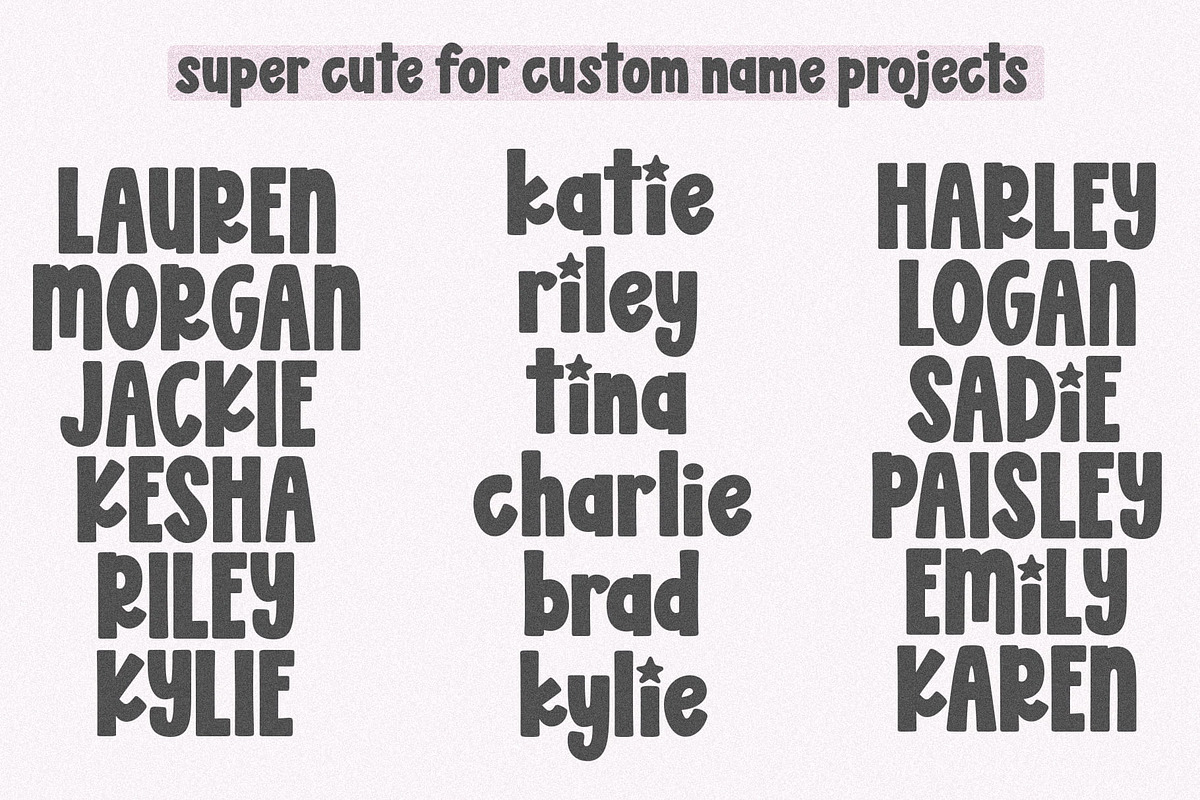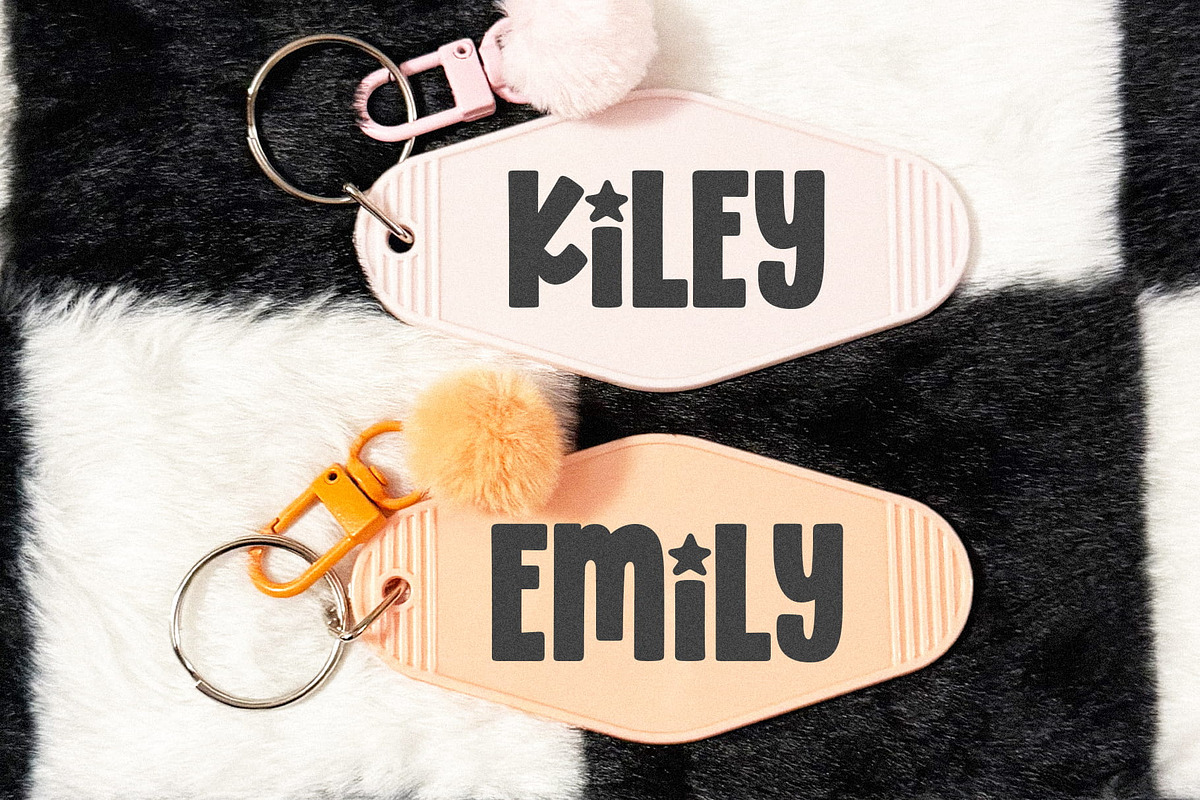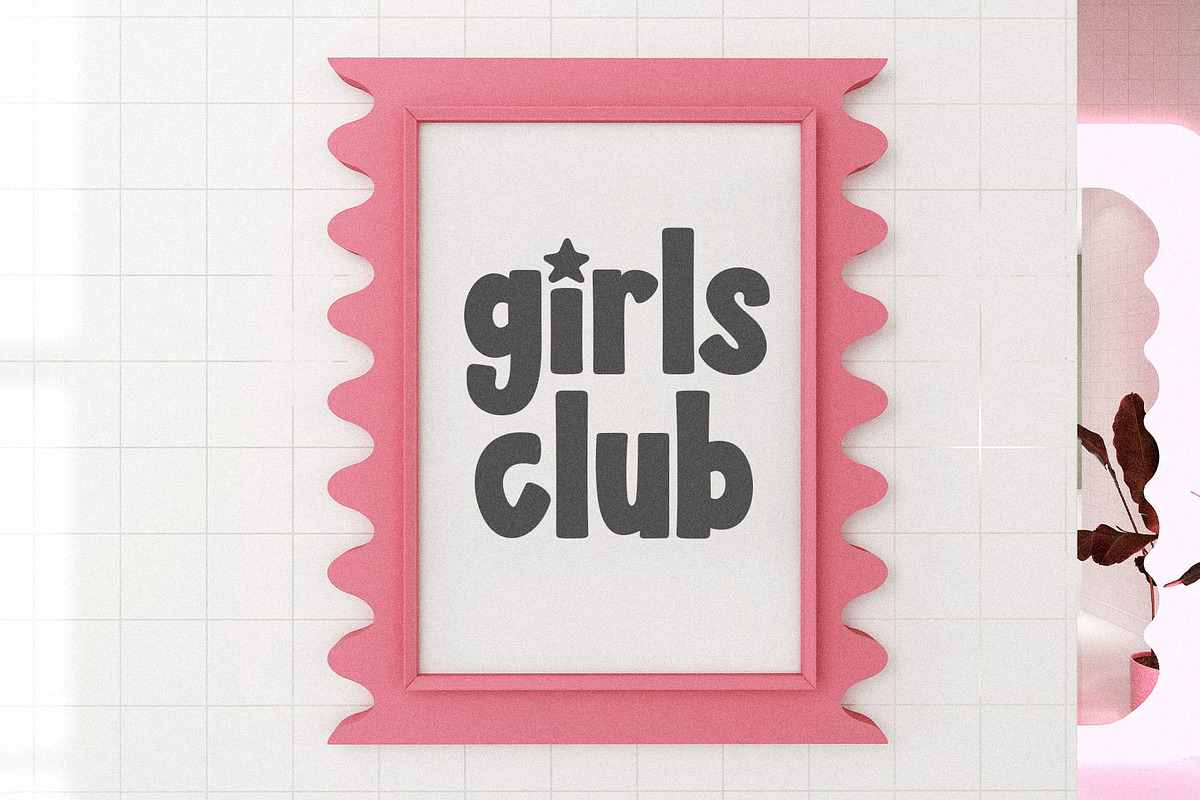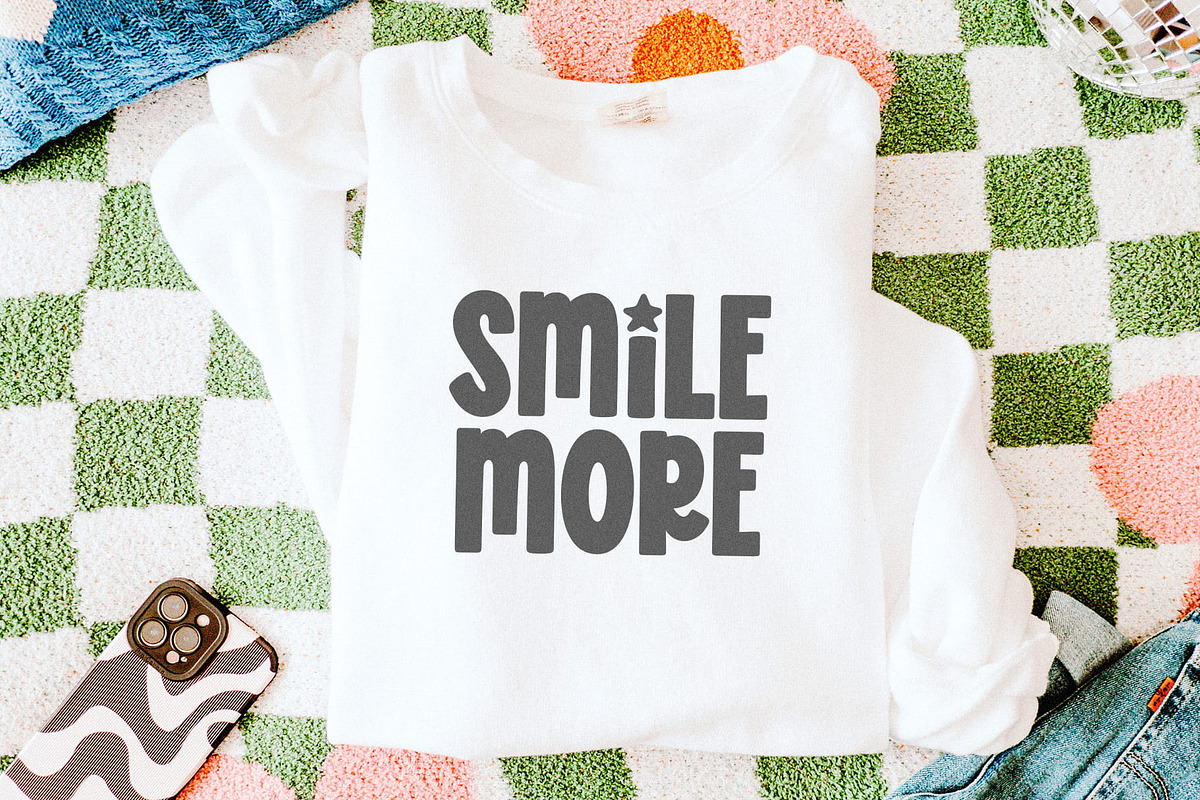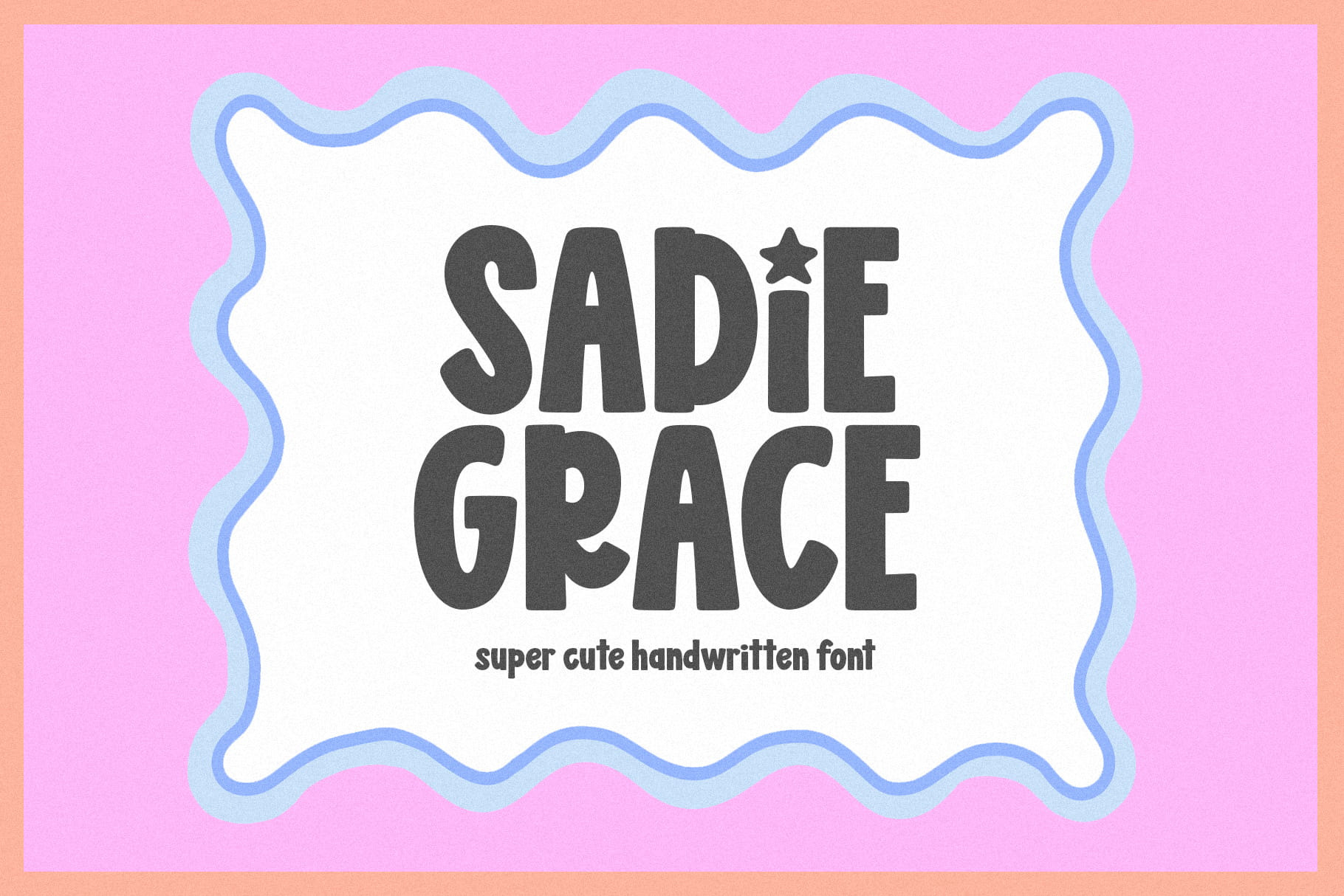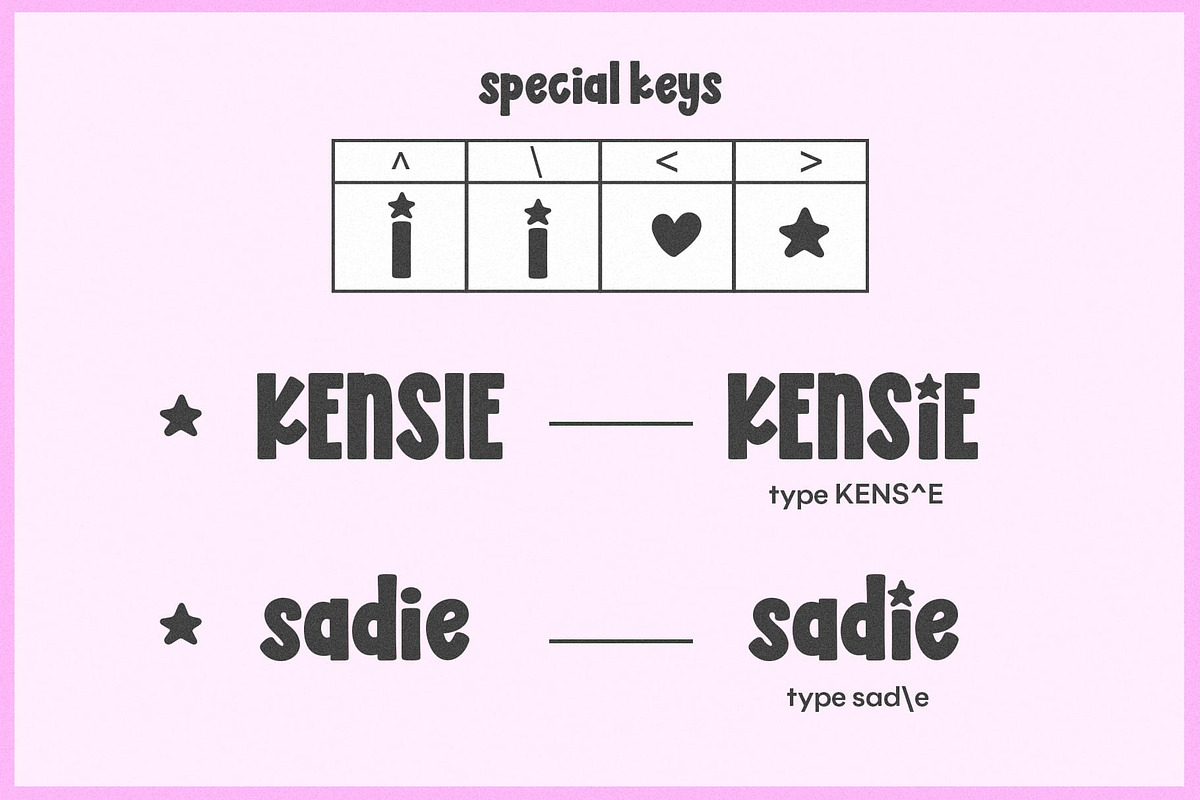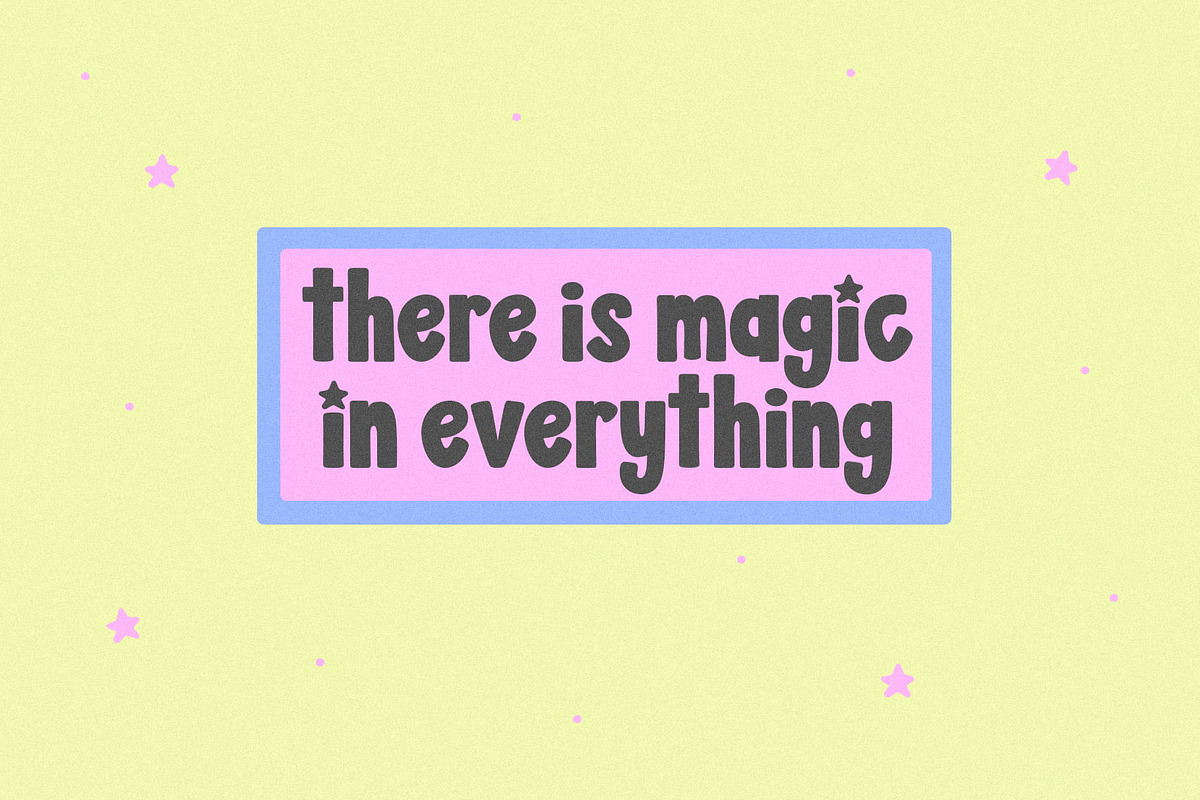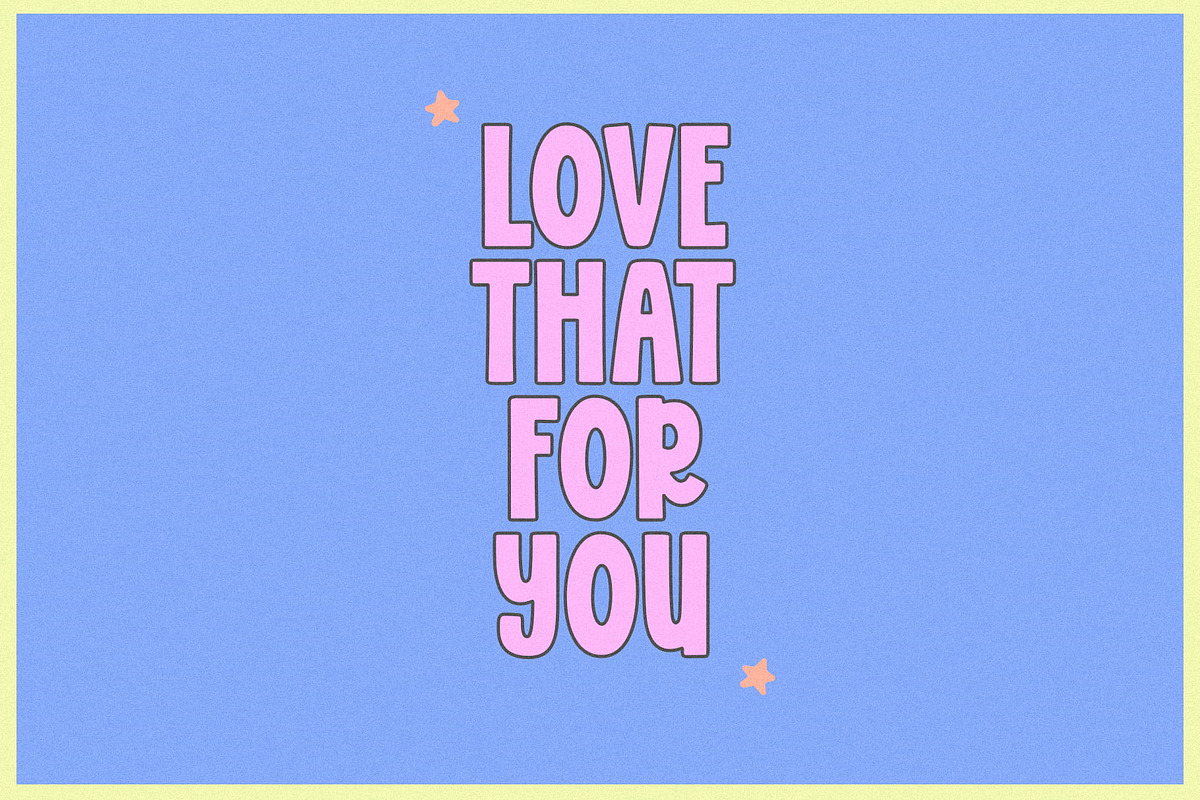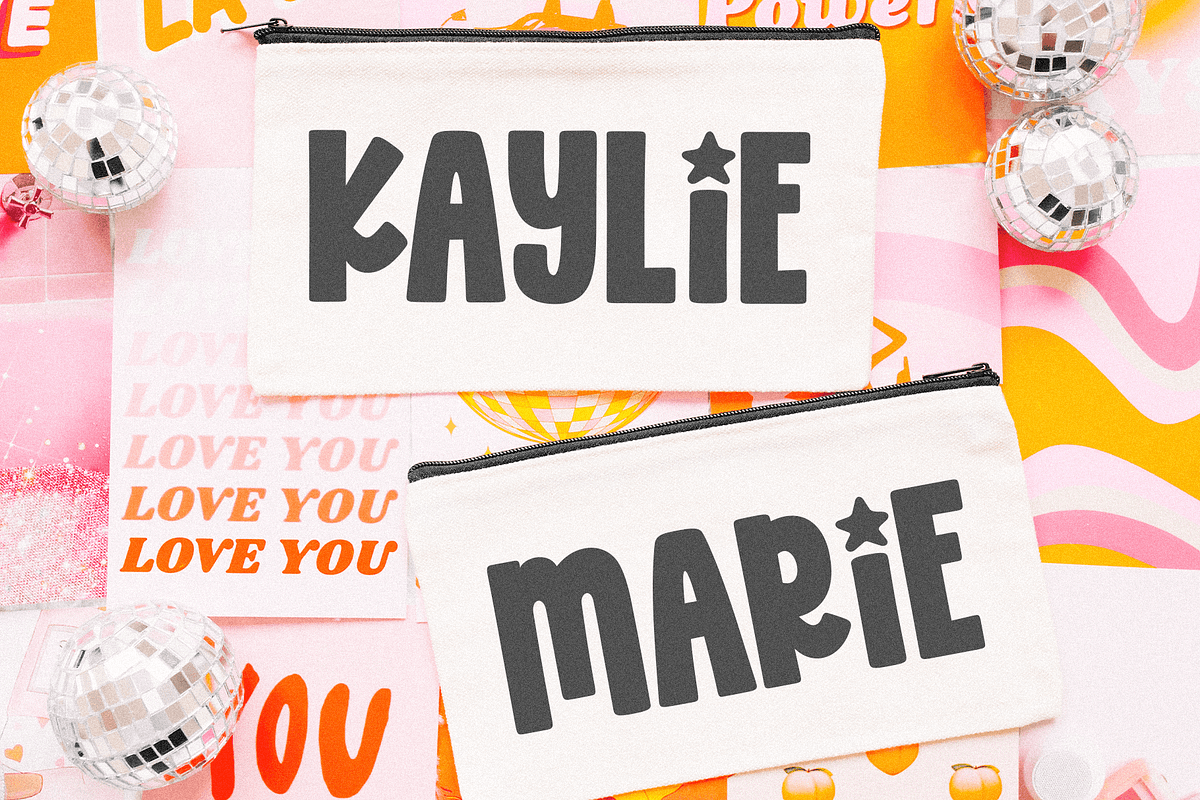
Sadie Grace | Cute Preppy Font
Sadie Grace is a cute and bubbly handwritten font!
_ use keys ^ \ < > to access star accent letters and extras _
This font is perfect for: names, cricut projects, painted banners, canva, school mascot names, shirts, stickers, logos, branding, teachers, posters and more!